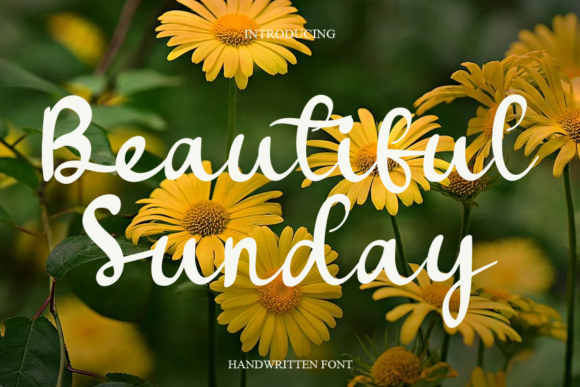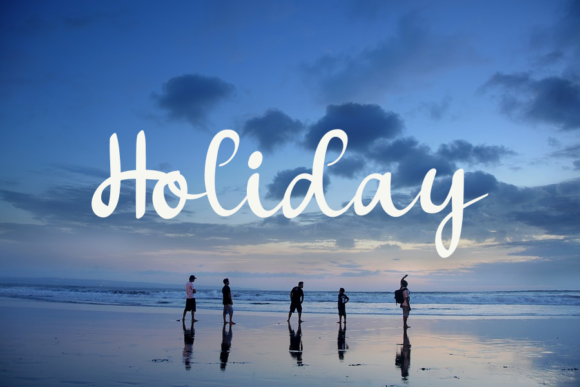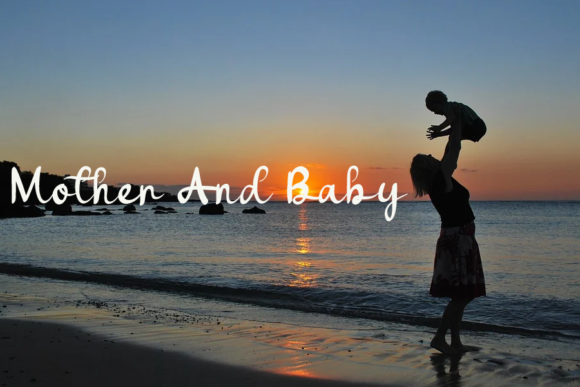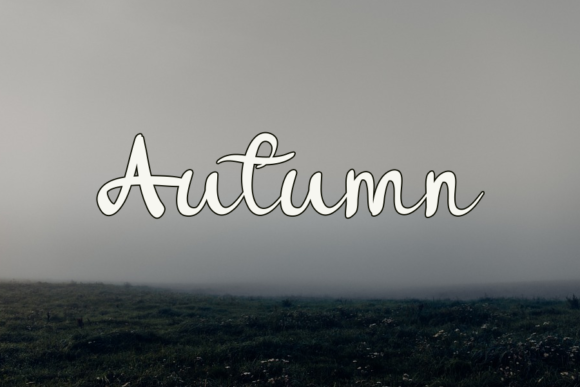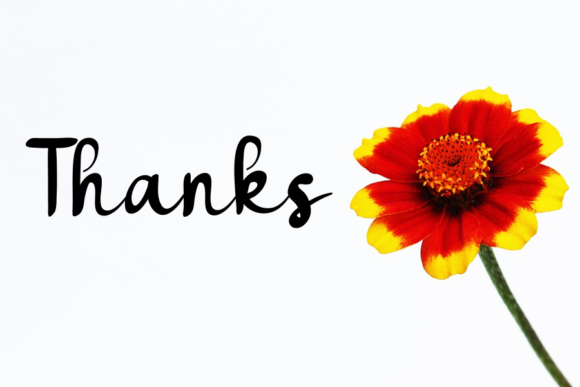
Beautiful Sunday Font
About Beautiful Sunday Font
Beautiful Sunday is a chic and beautiful script font. Dainty and joyful, this font will be ideal for writing wedding invitations, cards or any other design that may need a personalized touch!